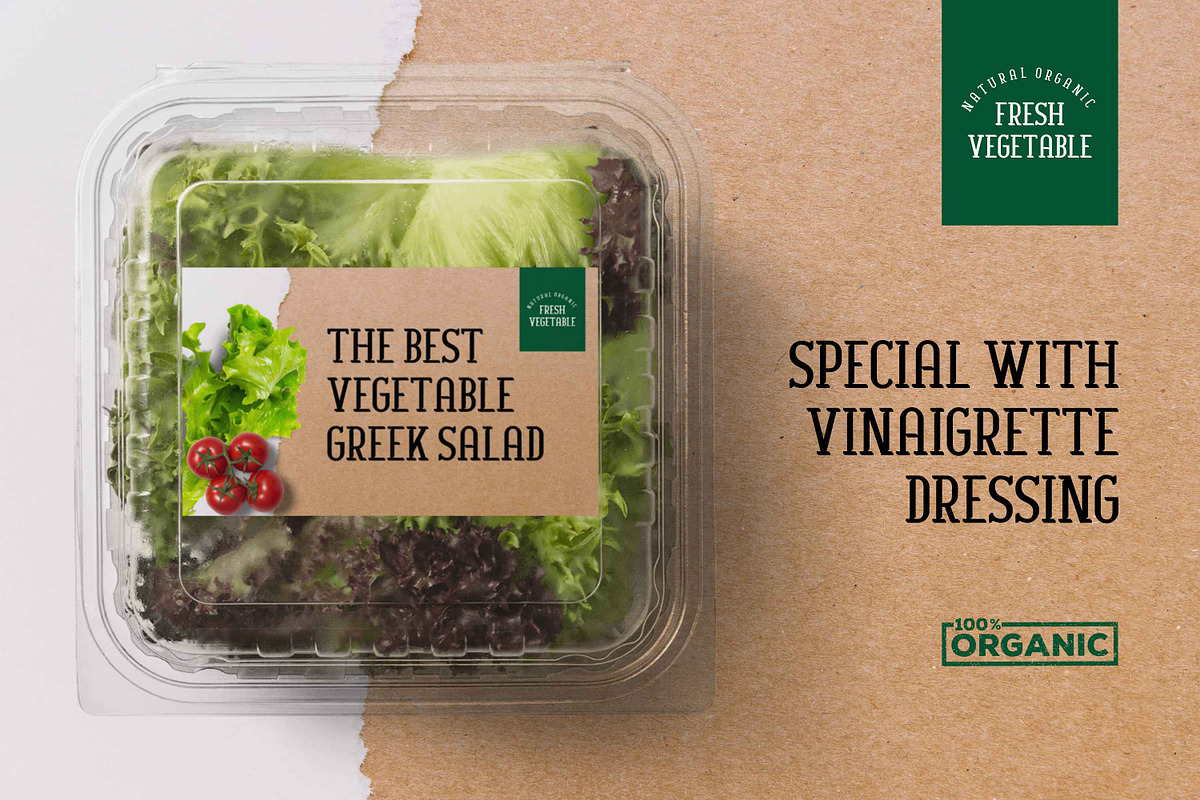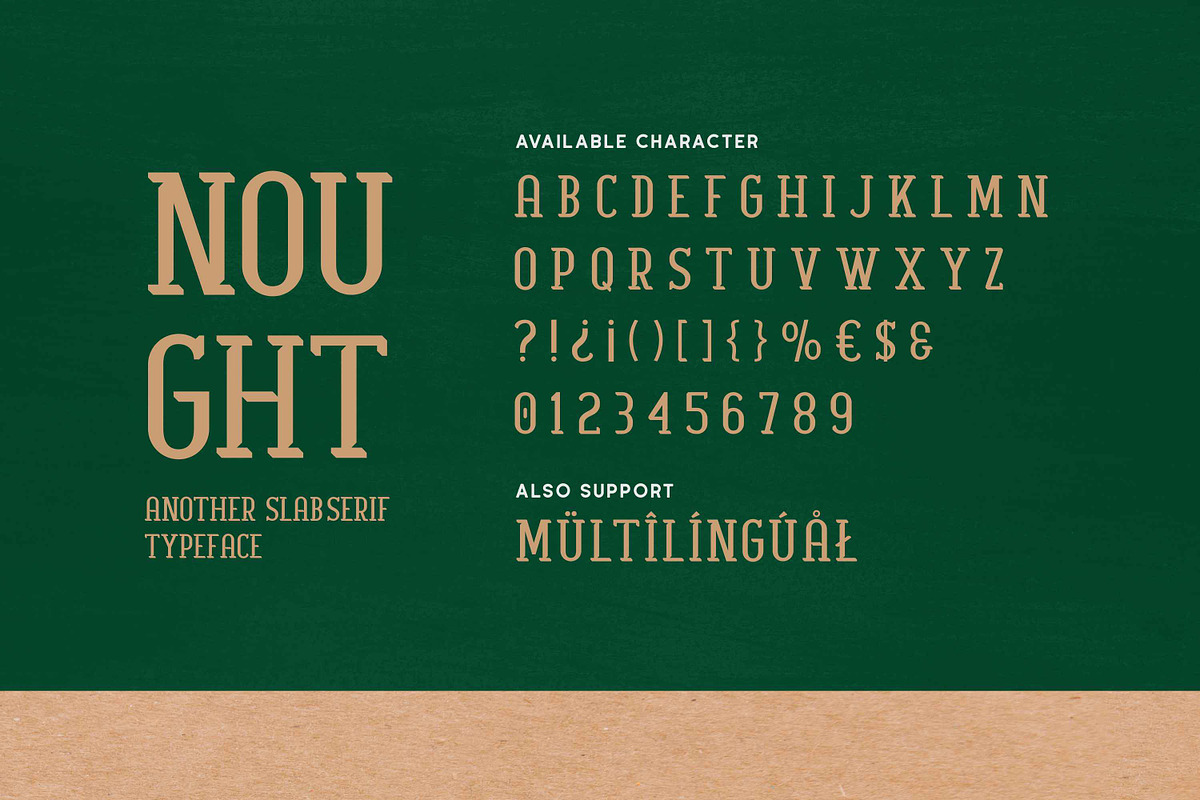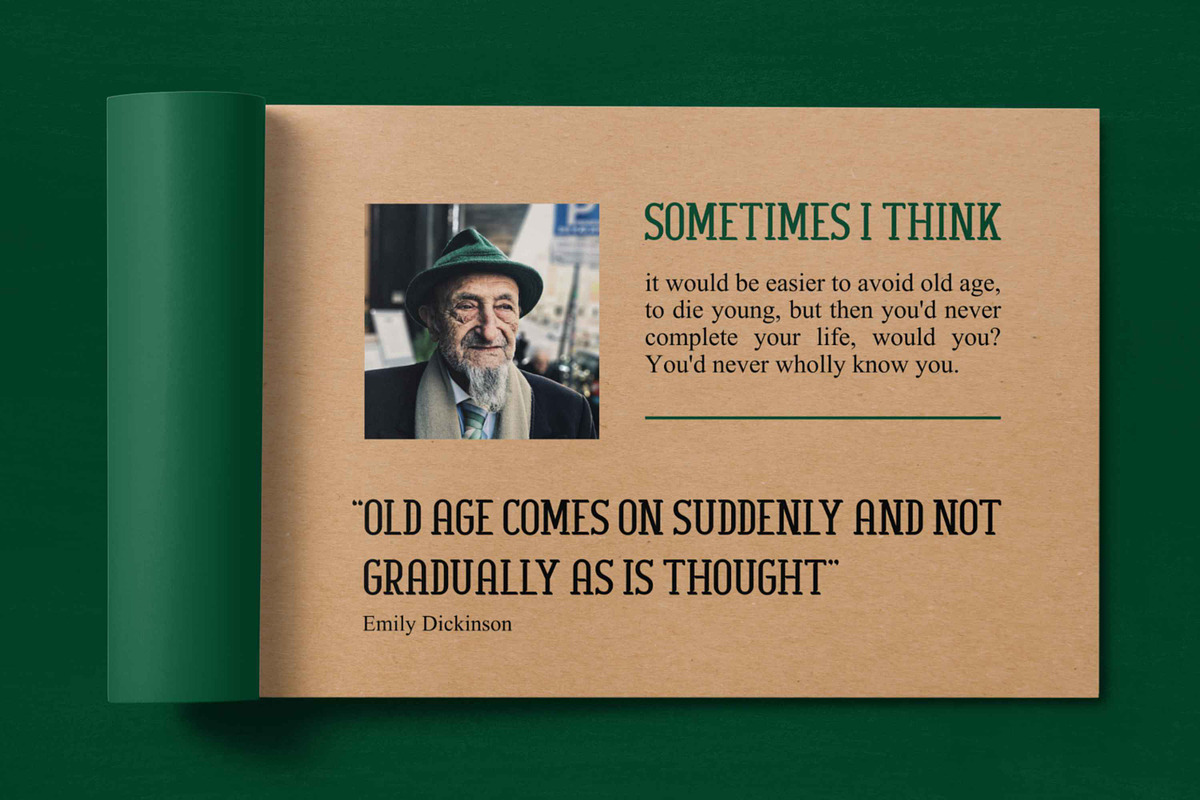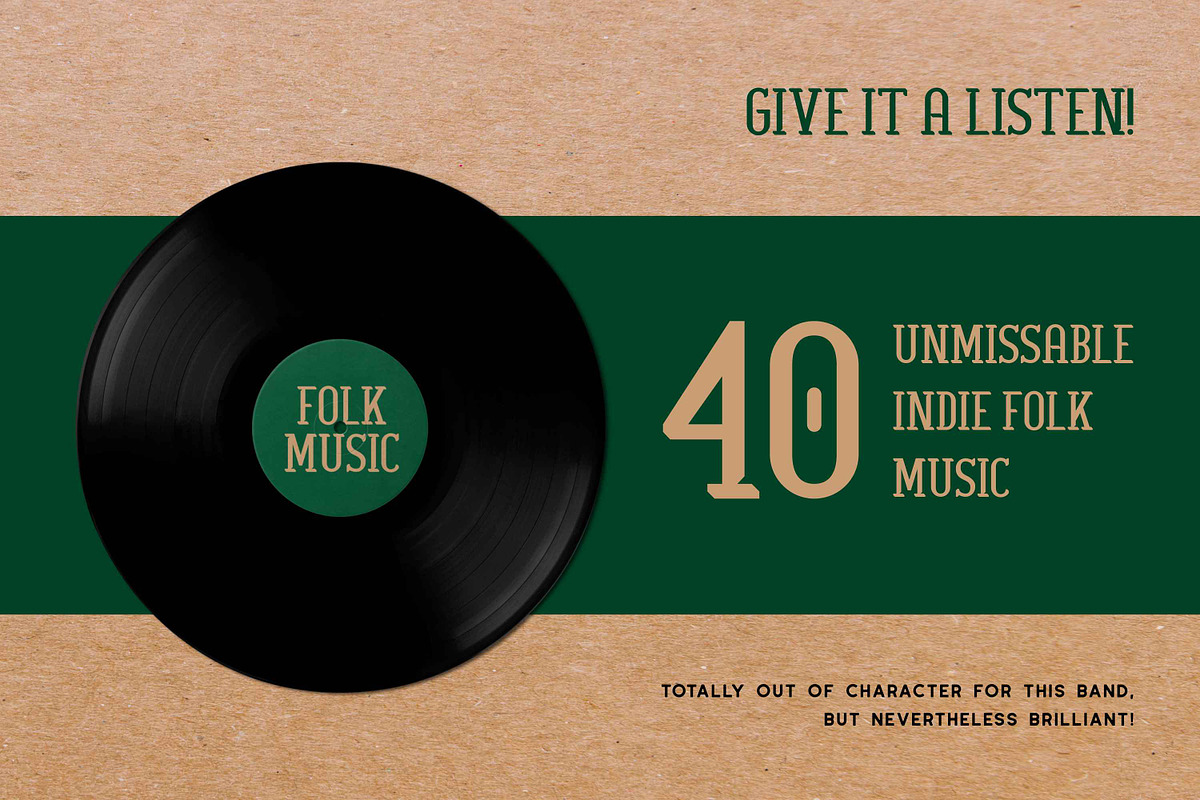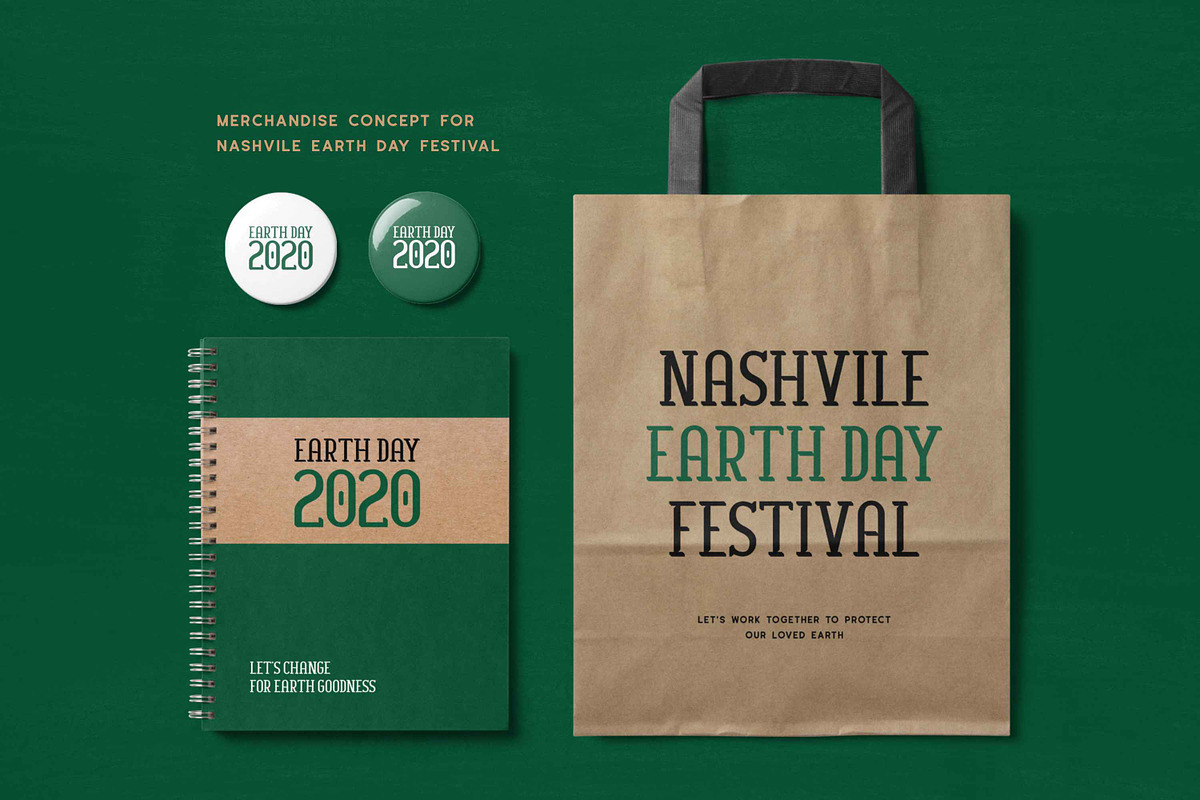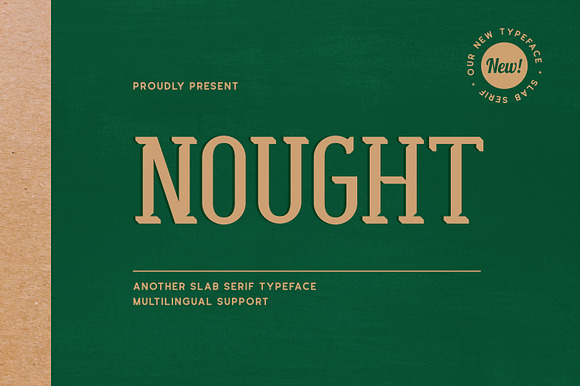
Nought - Another Slab Serif Typeface
Nought is another slab serif typeface, It is a display font with vintage and condensed look that perfect for branding projects, advertisements, product packaging, product designs, label, header, and any projects.
Numerals & punctuation
Nought - Another Slab Serif Typeface by Fype Co. fits naturally into Branding, posters, packaging, typography.